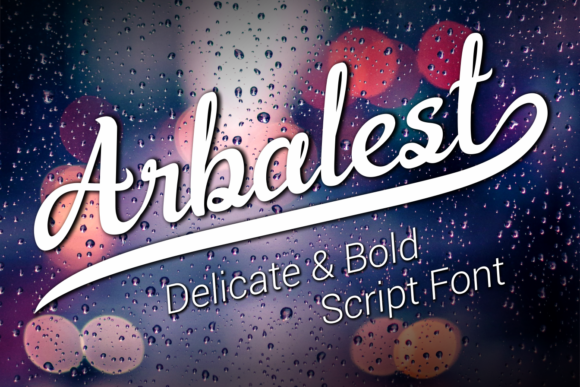
The Designer's Guide to Arbalest: A Modern Script Font
Introduction: What is the Arbalest Font?
In the diverse world of typography, Arbalest stands out as a cursive and distinct handwritten font designed for elegance and impact. Its distinct and well-rounded letters form a true typographic masterpiece, balancing artistic flair with practical readability. For designers seeking a free Script Handwritten font for creative projects, an Arbalest free download offers immediate access to this versatile tool. The font's charm lies in its incredibly versatile style, making it a go-to option for those who need a premium Script Handwritten font feel without a premium price barrier at the outset.
Design & Style Analysis of Arbalest
Arbalest possesses a visual personality that is both sophisticated and approachable. Its strokes are fluid yet controlled, avoiding the overly loose or chaotic feel of some handwritten styles.
Letterforms and Character
The letterforms are indeed well-rounded, with graceful curves and consistent baseline adherence that makes text blocks look cohesive. This gives Arbalest a more polished feel compared to many raw, sketch-style Script Handwritten fonts.
Weight and Spacing
It maintains a medium weight that is neither too delicate nor too bold, providing excellent visibility. The spacing is generous enough to prevent characters from clashing, which is a common pitfall in script fonts, making it a professional Fonts font choice for headers and titles.
Arbalest vs Similar Font
When considering an Arbalest vs similar font comparison, it often sits between the formal elegance of a font like Lucida Calligraphy and the casual friendliness of something like Pacifico. It offers more structure than the latter, making it better suited for professional branding contexts.
Best Uses for Arbalest in Design Projects
The versatility of Arbalest shines across numerous design applications. Its distinct style adds a personalized, human touch that digital sans-serifs often lack.
Arbalest for Logo Design & Branding
Arbalest for logo design is a particularly strong application. Its unique cursive form can become the memorable signature of a boutique, cafe, or creative studio. Similarly, for cohesive Arbalest for branding, the font can be applied to business cards, letterheads, and brand guidelines to establish a consistent and elegant identity.
Arbalest for Wedding Invitations & Cards
This is a classic and perfect use case. Arbalest for wedding invitations and related stationery brings a warm, personal, and celebratory tone to the typography, elevating the entire design with its handwritten elegance.
Arbalest for Posters, Social Media & Packaging
For event posters, impactful social media graphics, or product packaging, Arbalest adds artistic flair. Arbalest for posters makes titles pop, while use on social media graphics can increase engagement through its visually appealing texture. On packaging, it suggests craftsmanship and care.
Font Pairing & Combinations with Arbalest
A crucial question for any designer is: what fonts pair well with Arbalest? Good Arbalest font pairing relies on choosing simple, supporting typefaces that let the script shine.
For a classic look, pair Arbalest with a clean, thin sans-serif like Montserrat Light for body text. This creates a clear hierarchy. For a more traditional or elegant project, a refined serif like Lora or Georgia works beautifully as supporting text. For a modern and bold combination, using a strong, geometric sans-serif like Futura as a counterpoint to Arbalest’s curves can be very effective. These are some of the best font combinations with Arbalest to start with.
When applying Arbalest, a few practical tips will ensure the best results. First, test your design in black and white to ensure the elegance holds without color dependency. Second, check readability at small sizes; while beautiful, some script fonts can become unclear when tiny, so use Arbalest primarily for medium to large text. Finally, review spacing in your layout; you may need to adjust letter-spacing slightly in certain programs for optimal visual flow. As a best Script Handwritten font for many use cases, its strength is in its balanced design, but conscious application makes it shine.